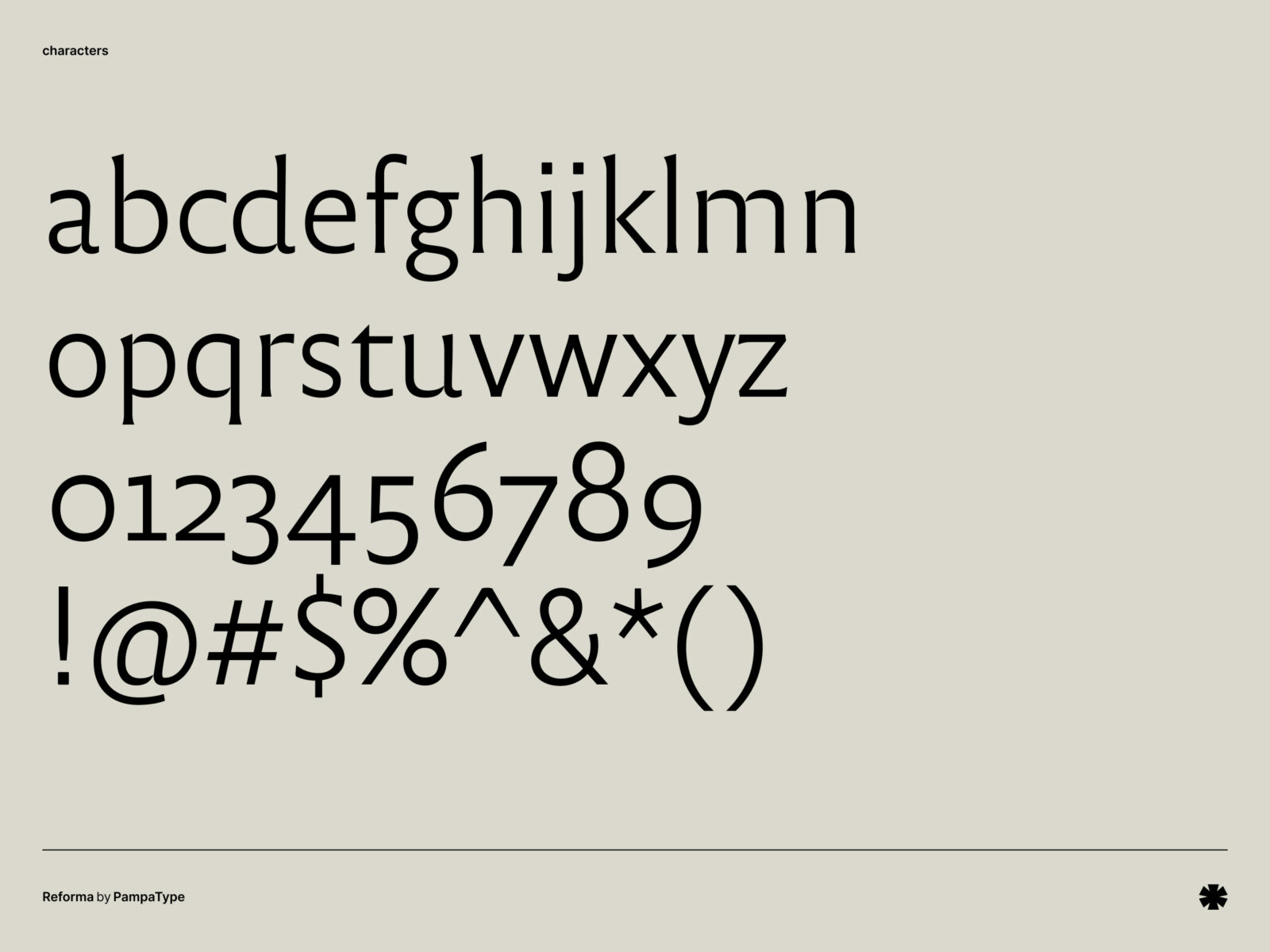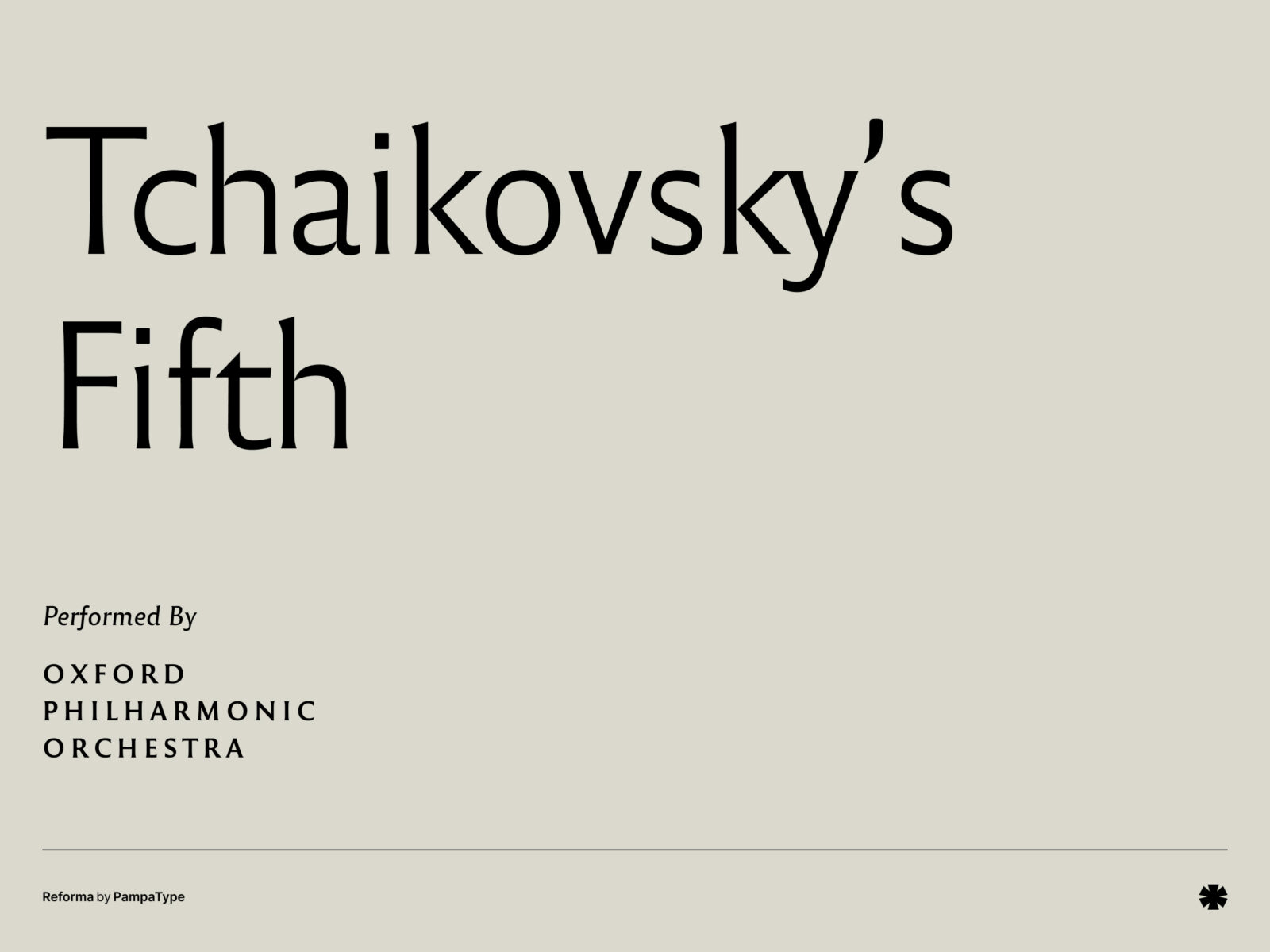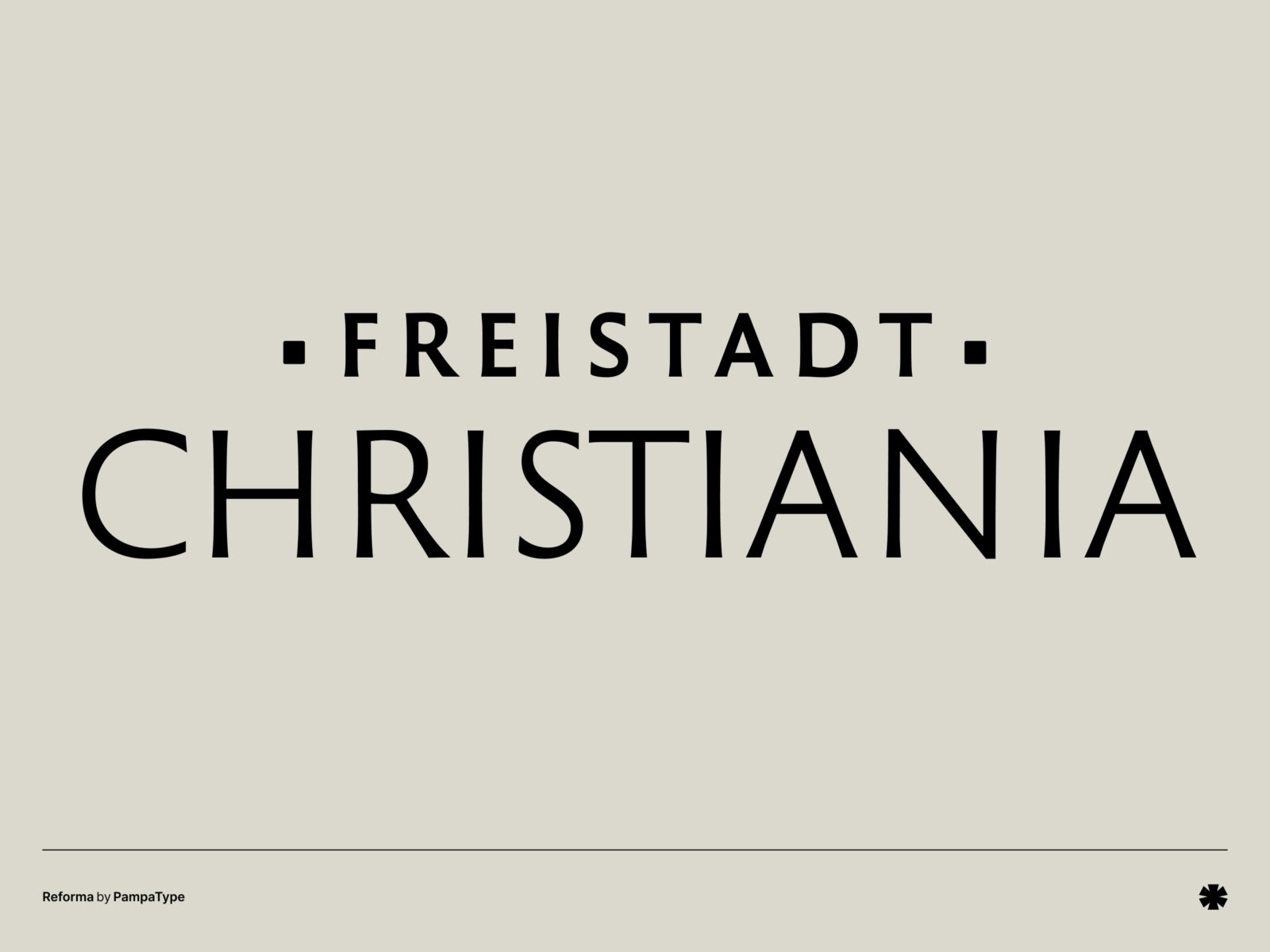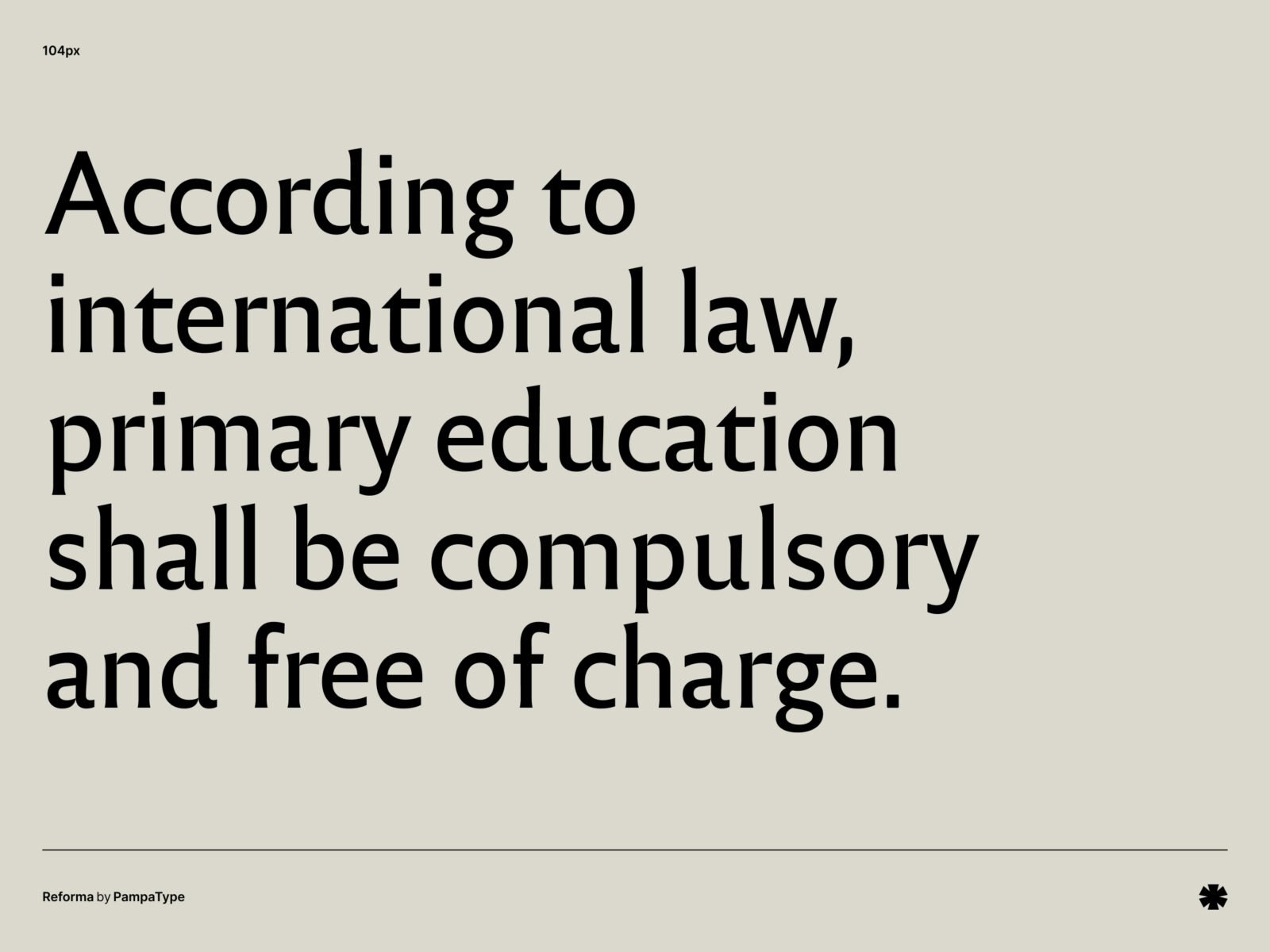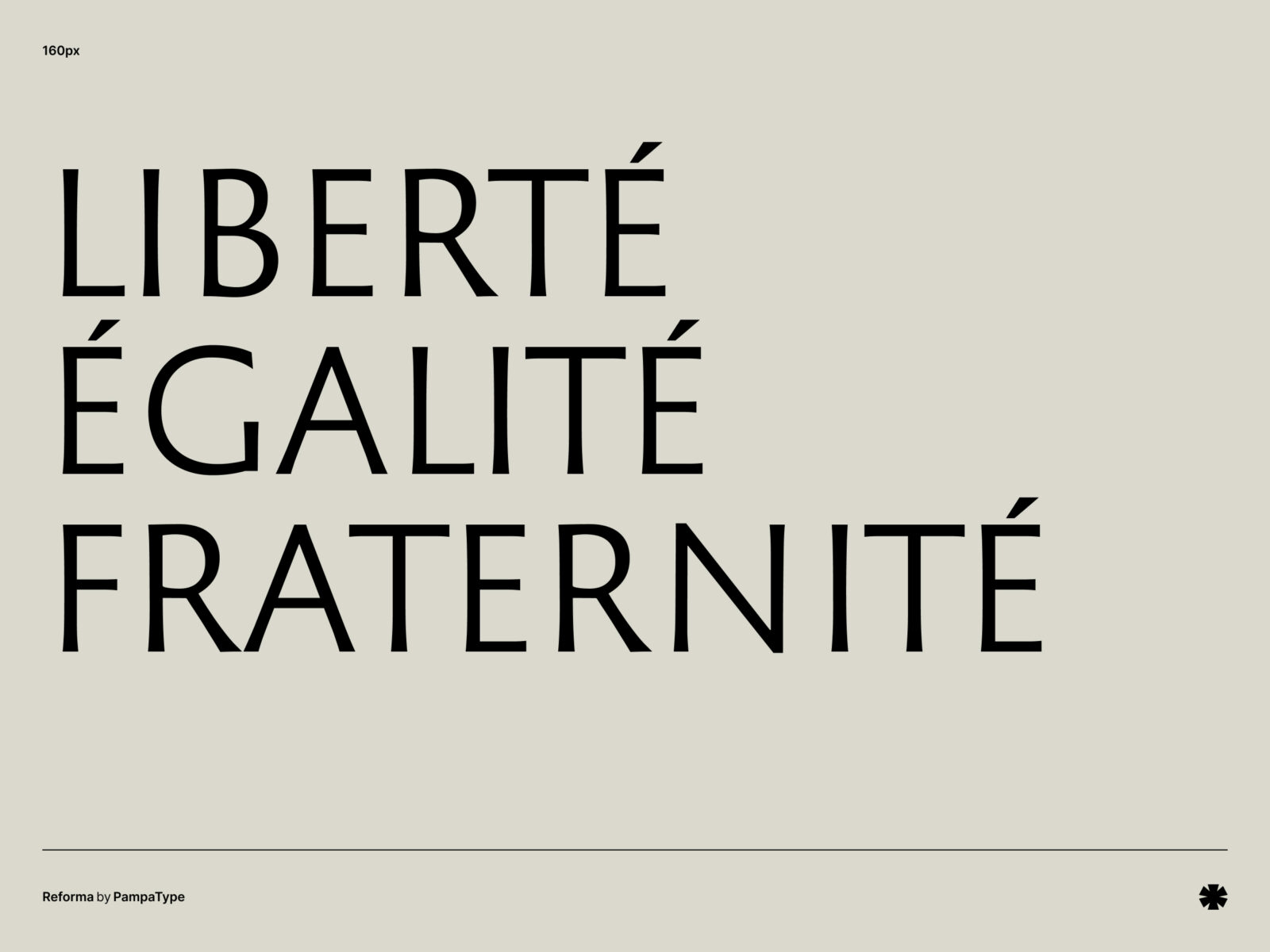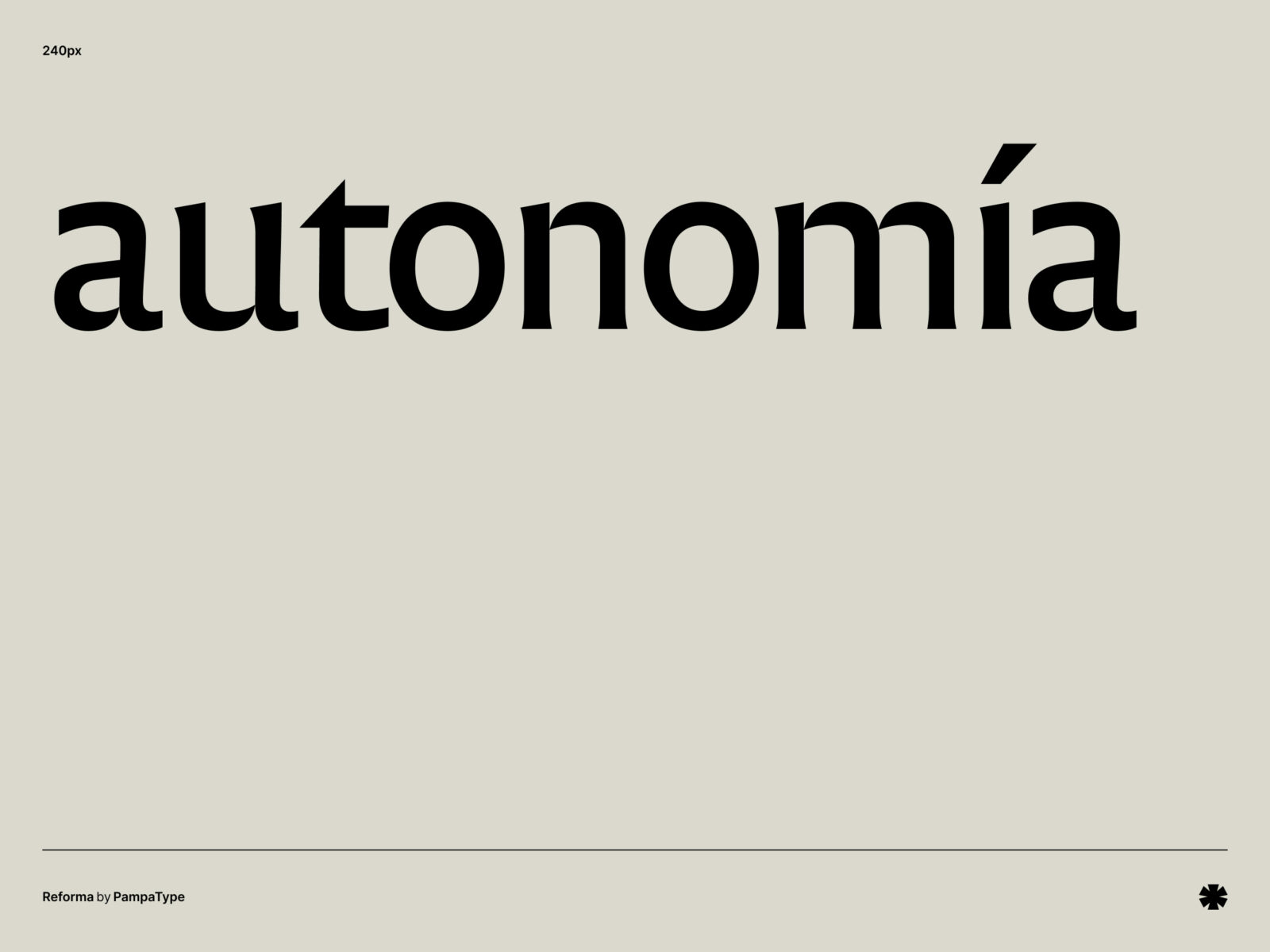
Reforma was originally commissioned by the Universidad Nacional de Córdoba, Argentina, but has later been made available for public and private use under a CC license. It's a beautiful, class serif with a Latin-American touch.